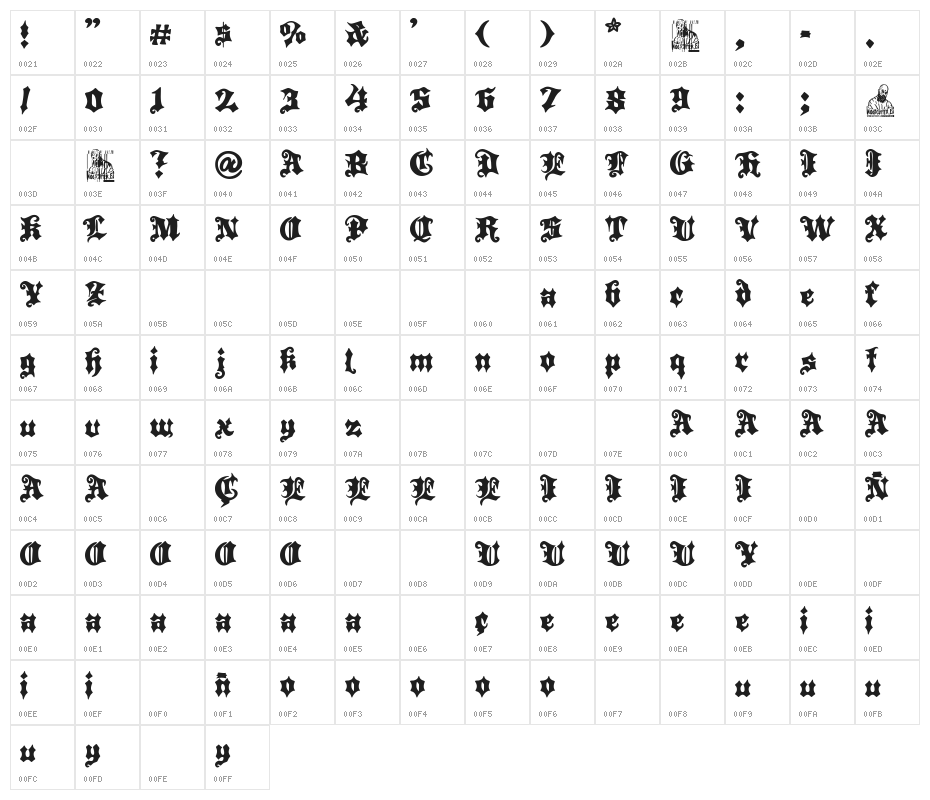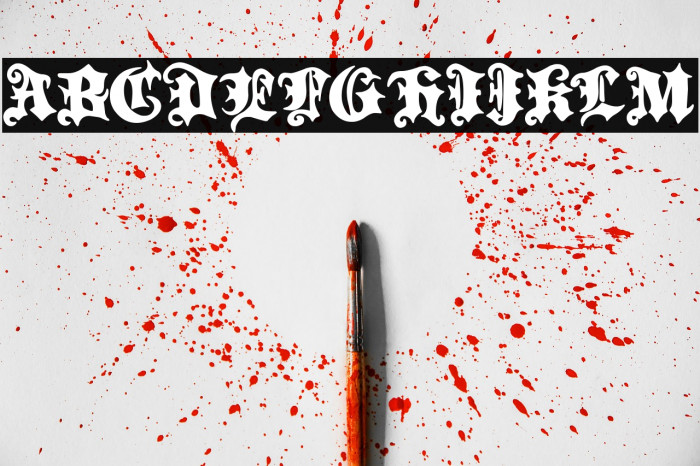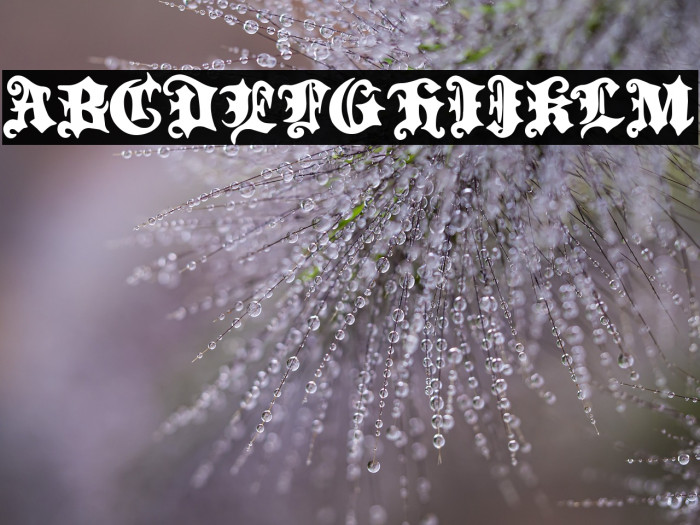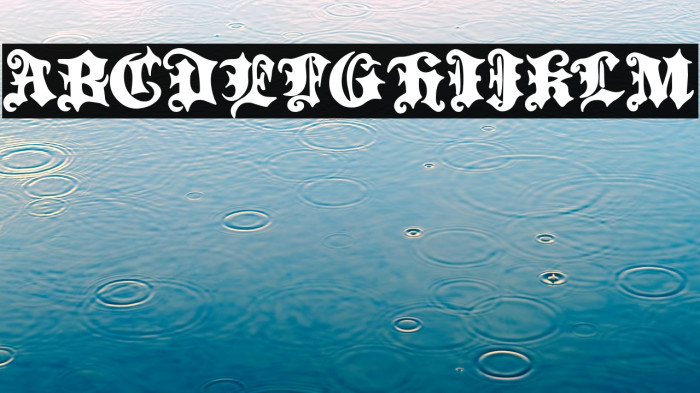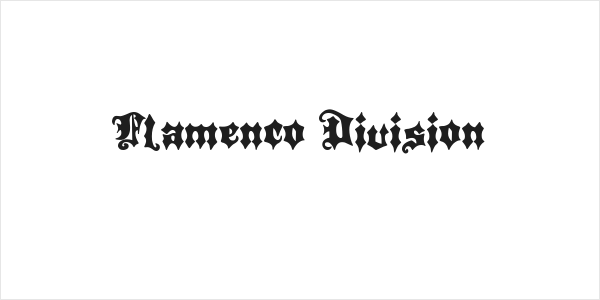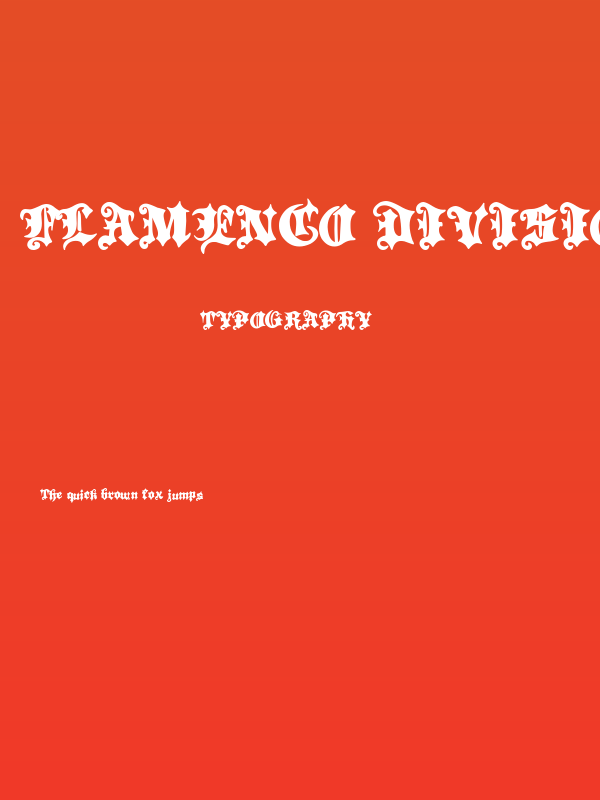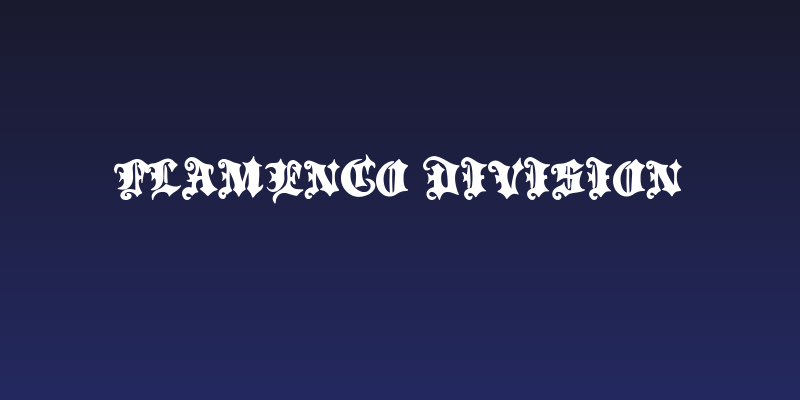
Flamenco Division Font
Flamenco Division Description
This font exudes a bold and dramatic presence, characterized by its intricate and ornate design. The letters are embellished with sharp, pointed serifs and elaborate flourishes, reminiscent of traditional Gothic or Blackletter styles. The uppercase characters are particularly striking, with their elaborate curves and pointed edges, while the lowercase letters maintain a similar aesthetic with slightly more subtle detailing. The numbers and special characters are equally ornate, ensuring a cohesive look across all text elements. This font's high contrast between thick and thin strokes enhances its dramatic appearance, making it ideal for creating a strong visual impact.
| Proposed Projects | Ideal for projects requiring a dramatic and historical feel, such as book covers, posters, branding for vintage-themed events, or logos for gothic or medieval-themed businesses. |